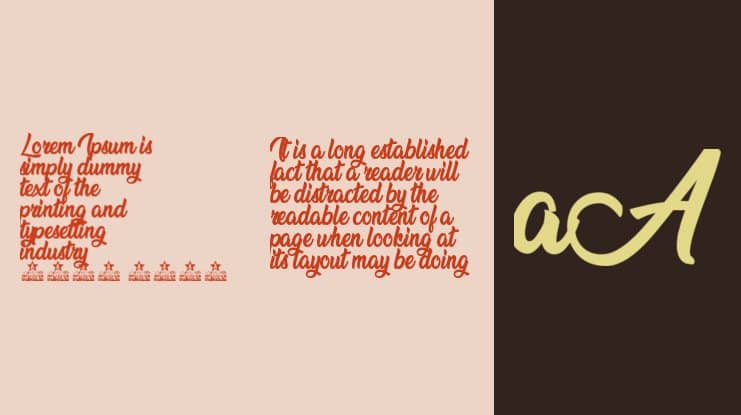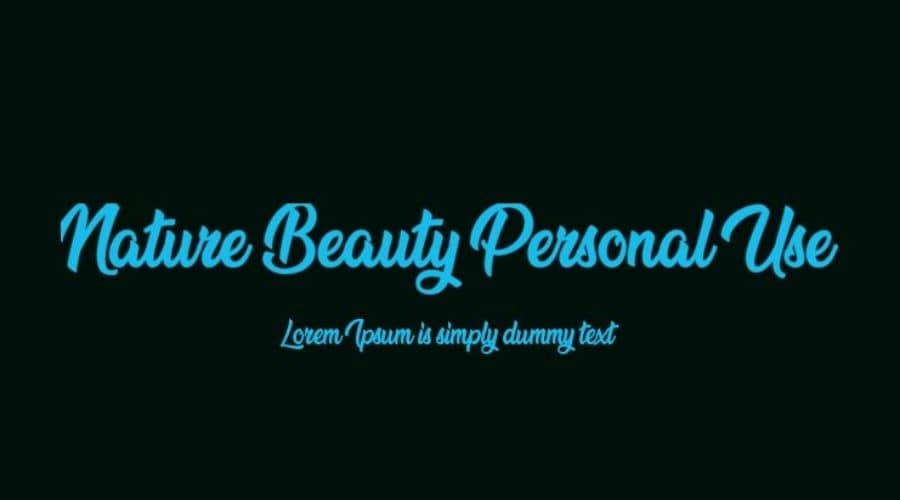
Nature Beauty Font
Nature Beauty is a high-quality Script, Calligraphy typeface. Billy Argel developed and shared the Font. He’s known for being a brilliant font designer with a large library of typefaces to choose from. This Font is free to use for personal purposes. All uppercase and lowercase letters and a few special characters are included in the Font. Because of its unusual strokes and lines, the Nature Beauty font may impress you.
The Font will enhance the appearance of text on designs. This lovely Typeface will effortlessly provide a one-of-a-kind element to any creative attempt! Beautiful contrasting typography for a variety of design tasks, such as logos and branding, packaging design, social media posts, advertising, and product designs.
| Name | Nature Beauty Font |
| Style | Script, Calligraphy. |
| Designer | Billy Argel |